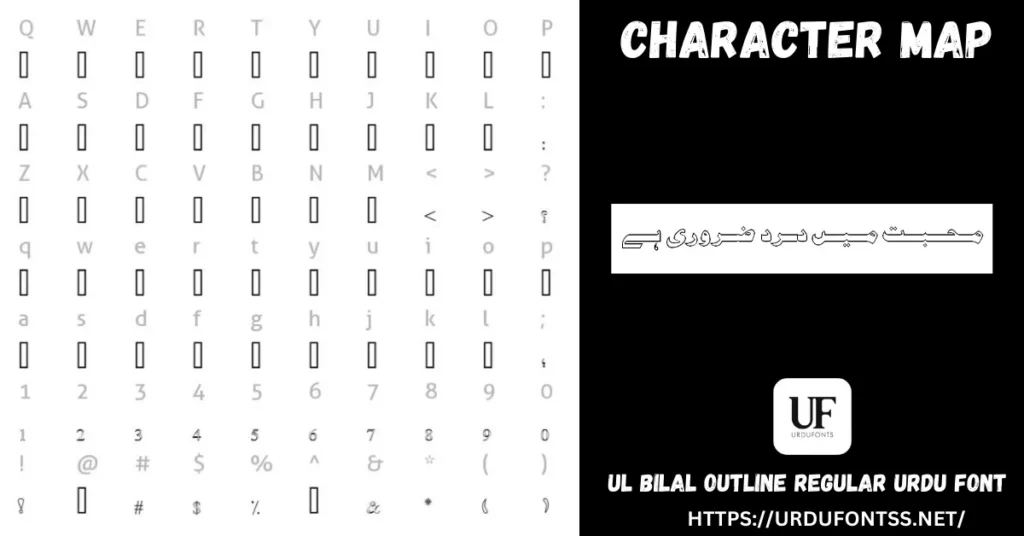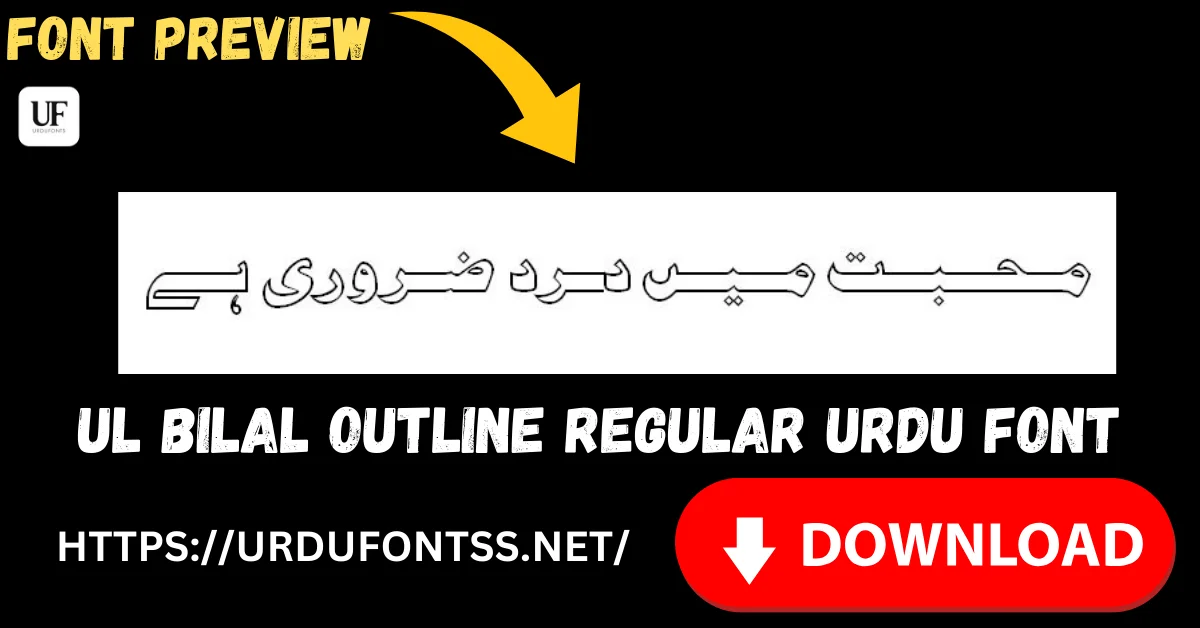
What is UL Bilal Outline Regular Font?
UL Bilal Outline Regular is a stylish and modern Urdu font that brings a bold outlined effect to your typography. If you are looking for a font that combines traditional Urdu elegance with a contemporary outline look, this one fits the bill perfectly. It is designed for users who want their text to stand out — whether on a poster, a wedding card, or a social media graphic.
The Appeal of Outline Urdu Fonts
Outline fonts have a distinct advantage — they create text that is naturally eye-catching without needing additional effects like shadows or strokes. The hollow, bordered characters give a sense of openness and elegance. UL Bilal Outline Regular uses this style effectively, making it suitable for projects where the text itself needs to be a design element.
Who Should Use UL Bilal Outline Regular Font?
This font appeals to a wide range of users, especially those working on creative or decorative projects. Here is who can benefit the most:
Graphic Designers & Creatives
Students & Educators
For project covers, presentation title slides, and classroom display materials, this font adds a creative edge. It helps student projects look polished and visually appealing without needing advanced design skills.
Social Media Content Creators
Wedding & Event Designers
Top 7 Use Cases of UL Bilal Outline Regular Font
Here are the most practical ways to use this font:
- Creative poster designs and event banners
- YouTube thumbnails and video title overlays
- Instagram and Facebook social media graphics
- Wedding card titles and decorative invitation text
- Educational project covers and presentation slides